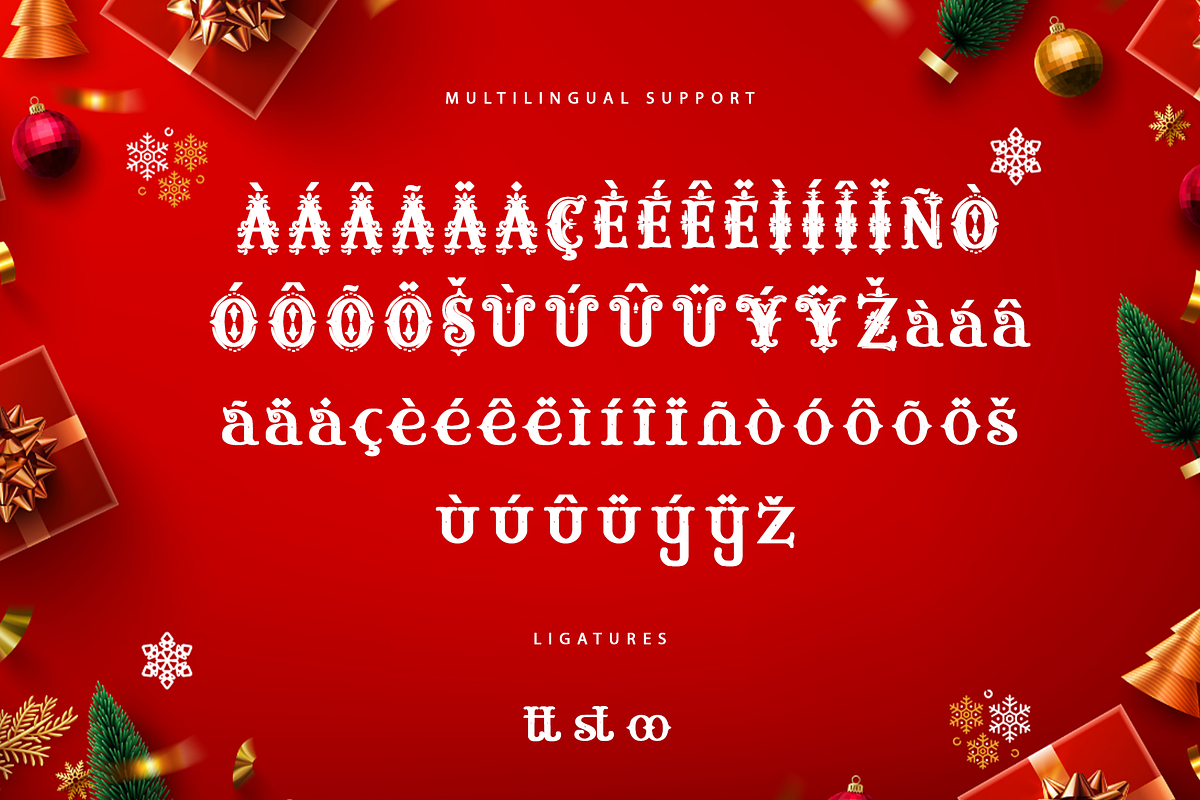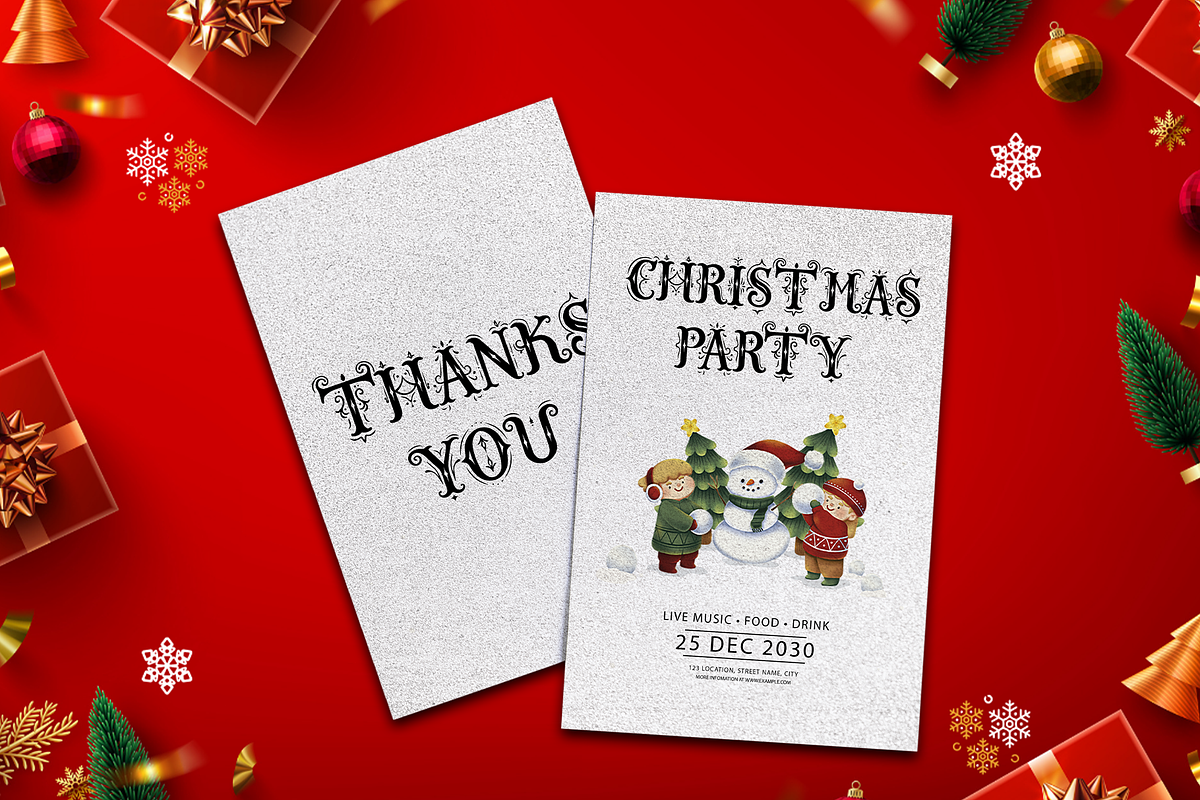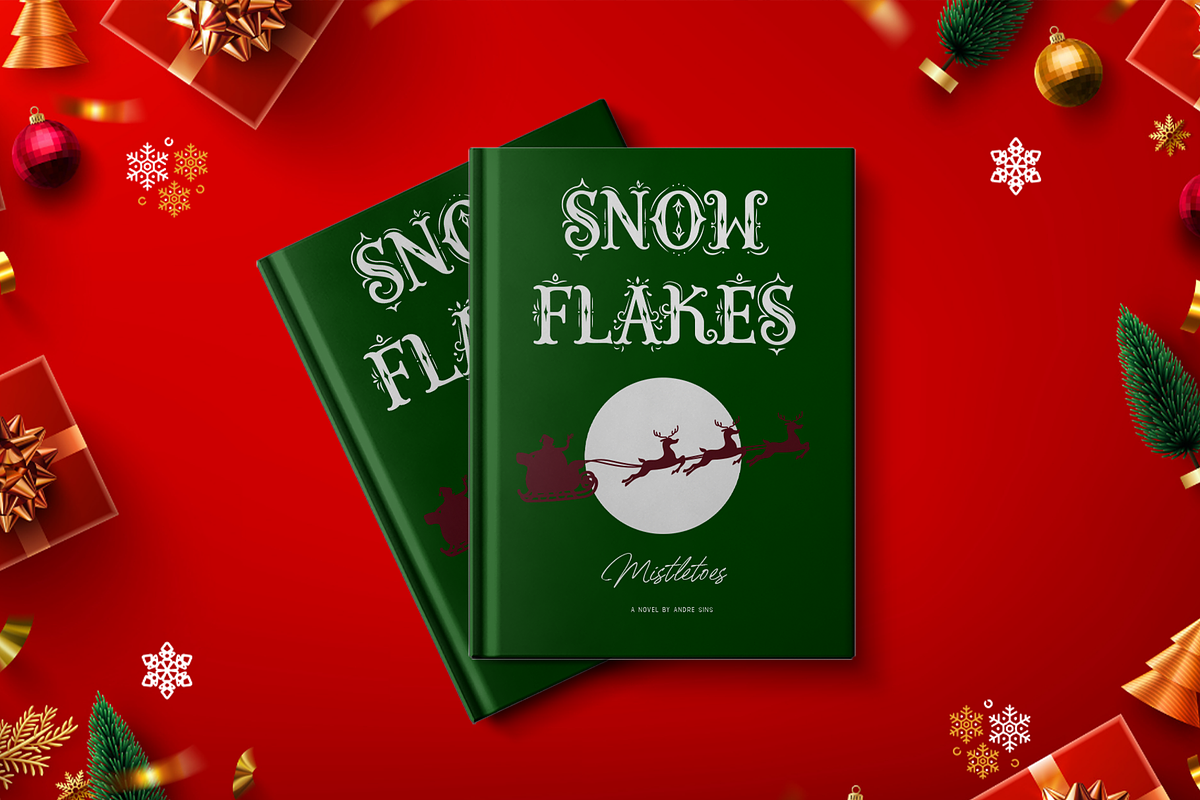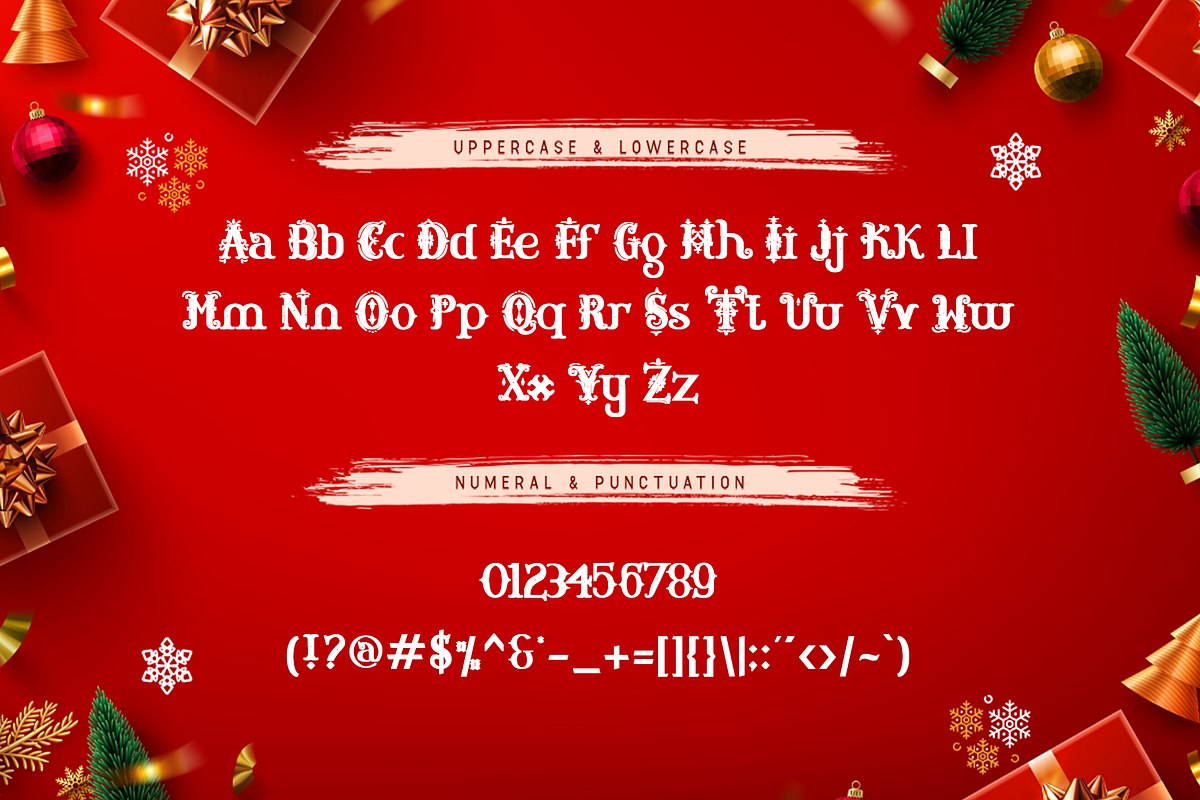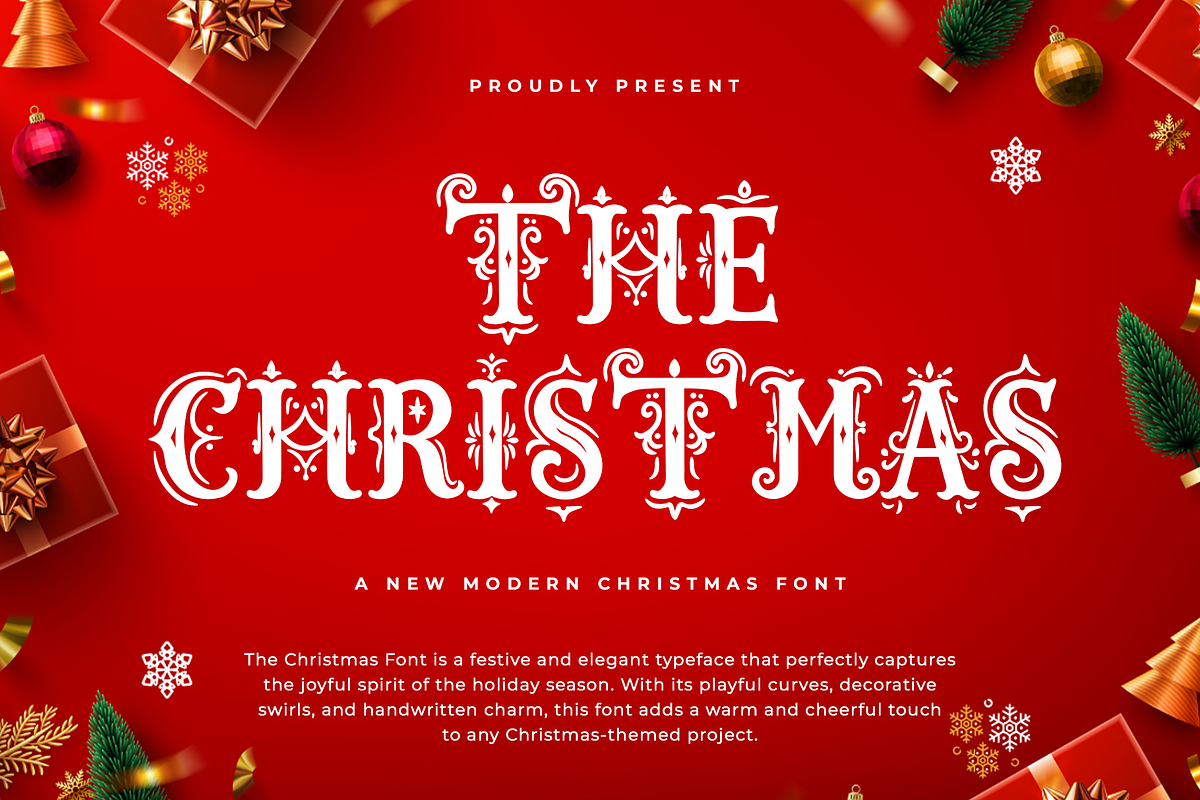
The Christmas–Modern Christmas Font
The Christmas – New Modern Christmas Font
Introducing The Christmas, a new modern Christmas font that captures the warmth, joy, and sparkle of the holiday season. Designed to bring festive cheer to your creative projects, The Christmas blends modern elegance with a touch of playful charm perfect for cards, invitations, posters, and holiday branding.
Its smooth curves and decorative flair create a cozy, festive atmosphere that feels both classic and contemporary. Whether you’re designing Christmas greetings, packaging for holiday gifts, or social media content, The Christmas adds a magical touch that delights and inspires.
Make your holiday projects shine with The Christmas a font that embodies the spirit of love, joy, and celebration.